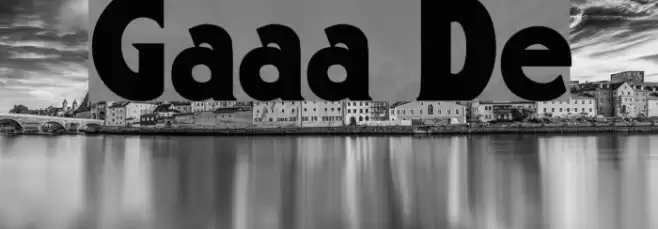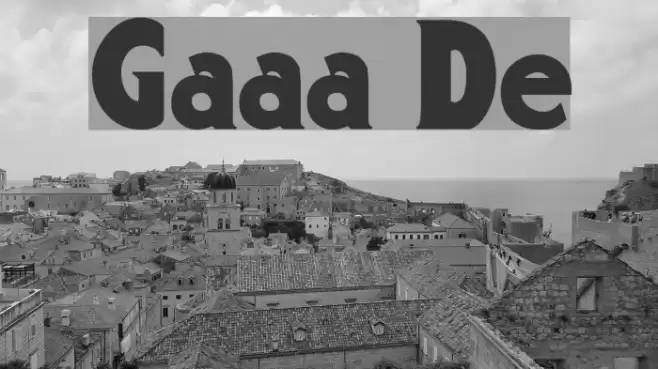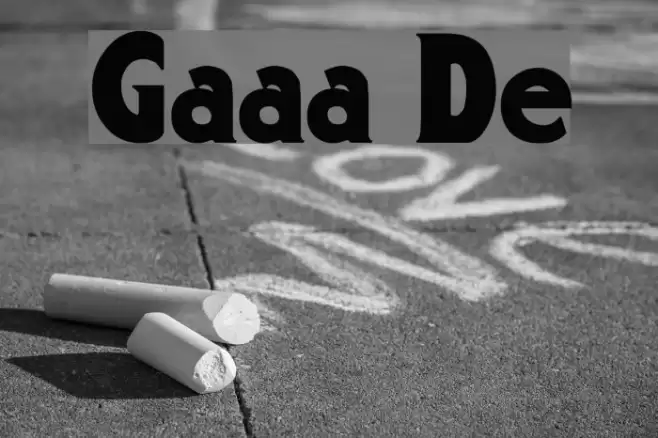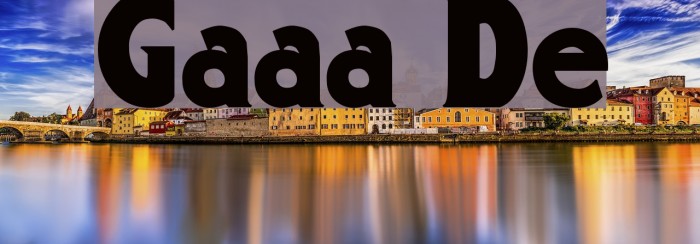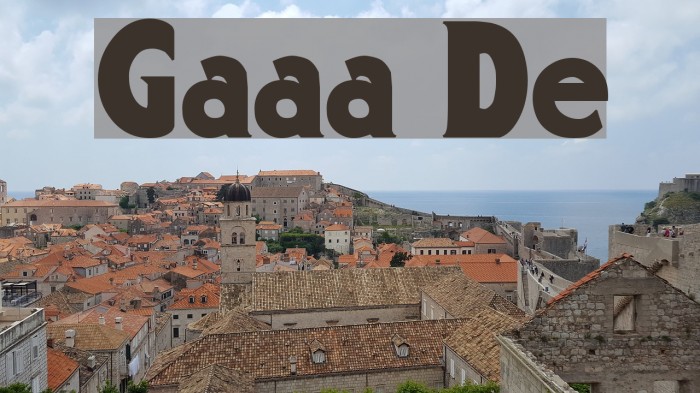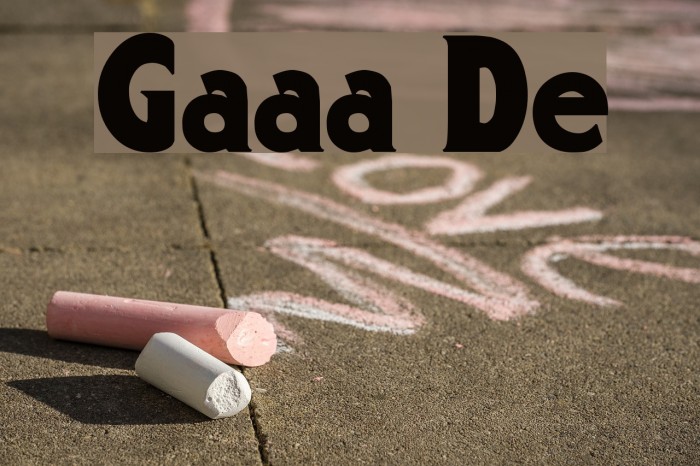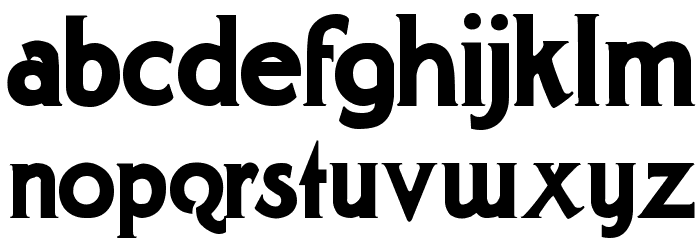
Gargantua Demo Font
Gargantua Demo Description
This font features a bold and striking design with a unique blend of geometric and organic shapes. The uppercase letters are characterized by sharp angles and bold strokes, giving them a strong presence. The lowercase letters maintain a consistent weight, with some characters exhibiting playful curves and unexpected twists. The font's overall appearance is both modern and slightly retro, making it versatile for various design applications. Its distinct style is further enhanced by the consistent stroke weight and the subtle variations in character shapes, which add visual interest without compromising readability.
A bold, modern font with geometric and organic elements, offering a unique and striking appearance from Decorative fonts.